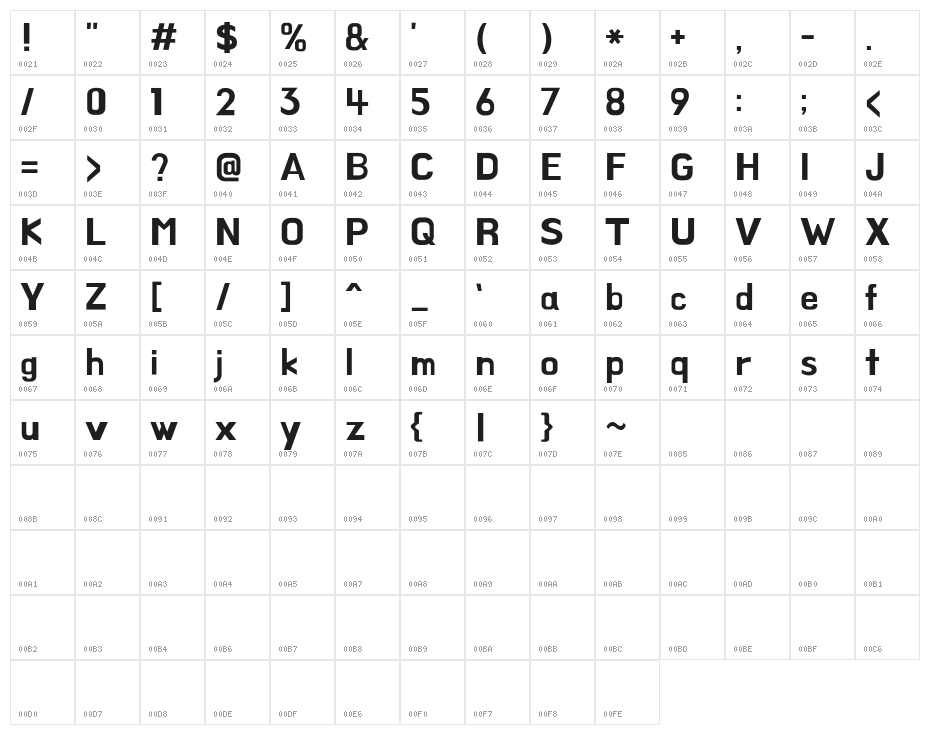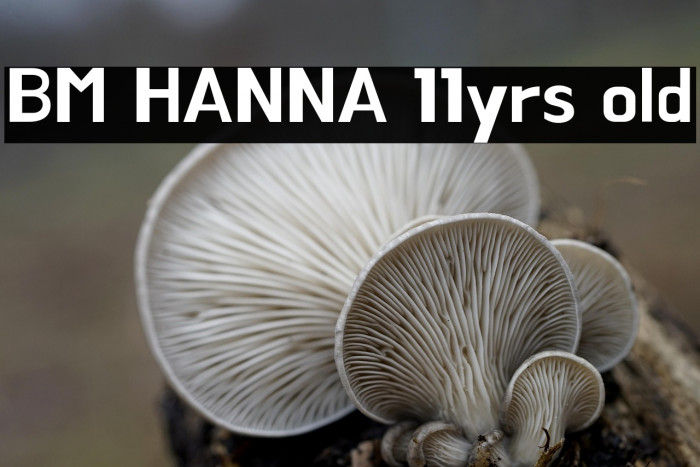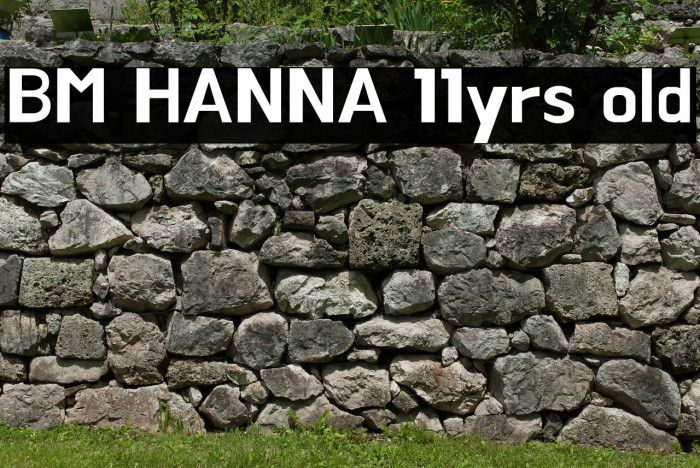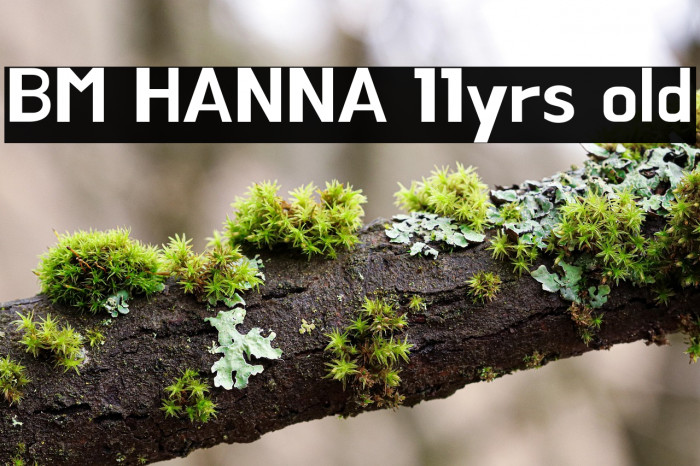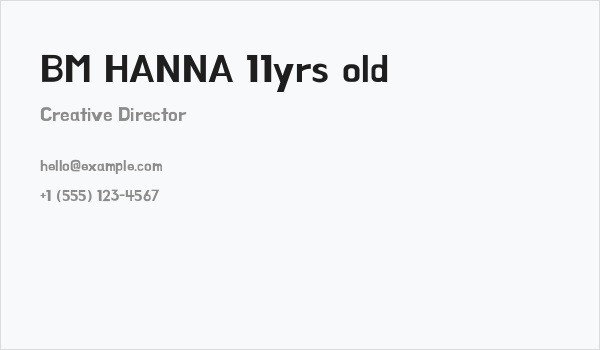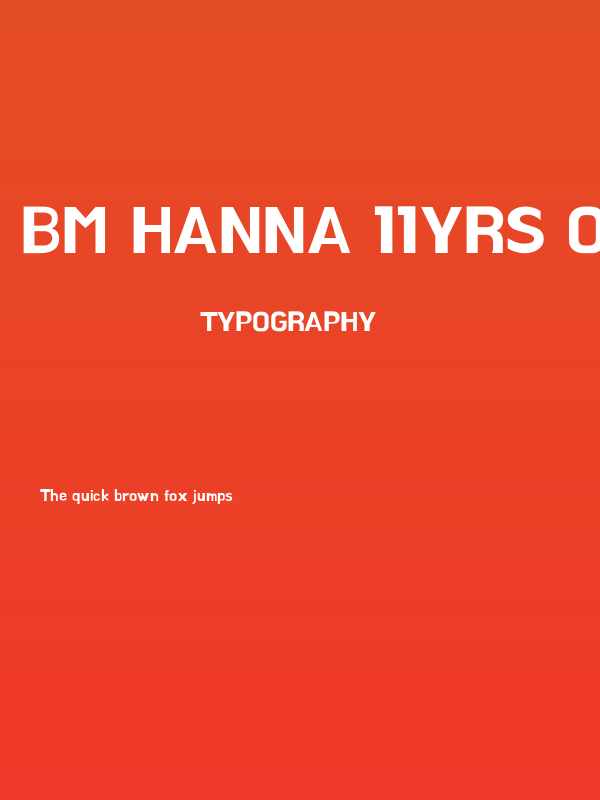
BM HANNA 11yrs old Font
BM HANNA 11yrs old Description
This font features a bold and modern sans-serif style with clean, geometric lines. The characters are well-proportioned, offering a strong and assertive appearance. The uppercase and lowercase letters maintain a consistent design, with rounded edges that soften the overall look. The numerals are clear and easy to read, matching the boldness of the alphabet. Special characters are distinct and maintain the same weight and style, ensuring uniformity across all glyphs. This font is versatile, suitable for both digital and print media, providing excellent readability and a contemporary aesthetic.
| Use Case | Headlines, Logos, Digital interfaces |
| Proposed Projects | Ideal for branding, advertising, headlines, and digital interfaces where a modern and assertive look is desired. |